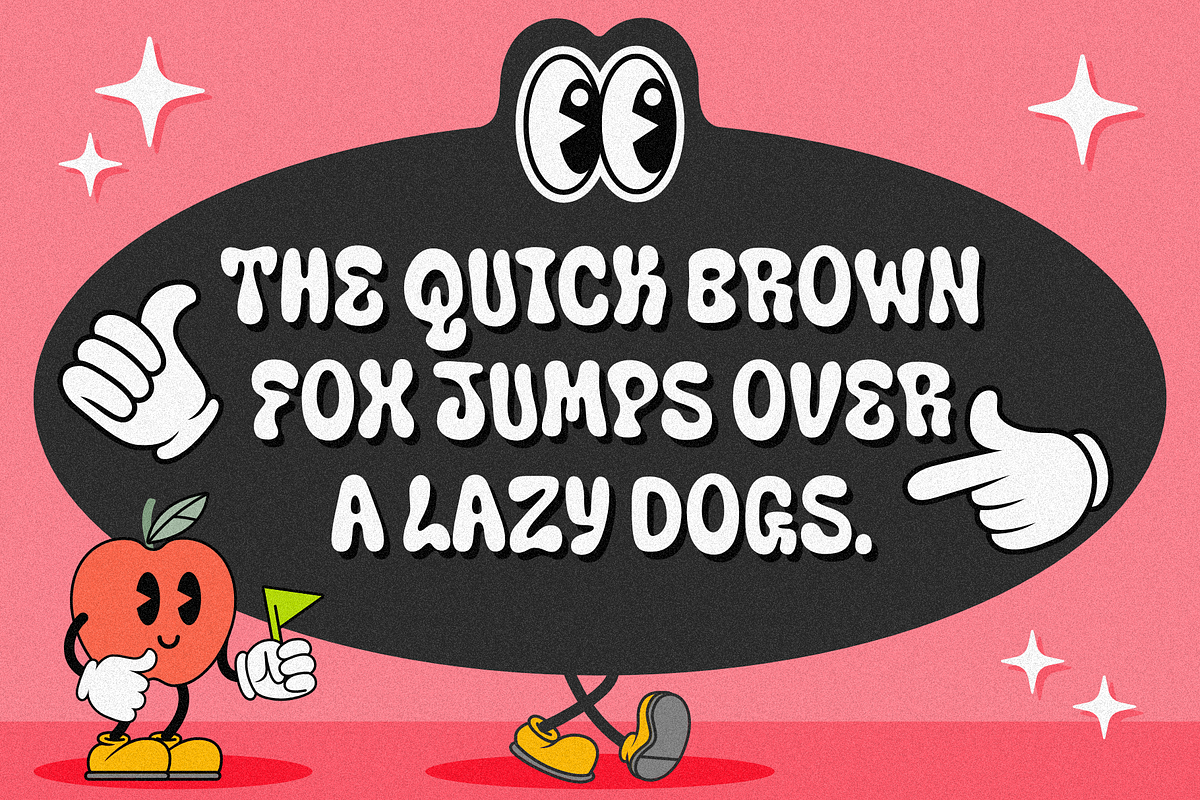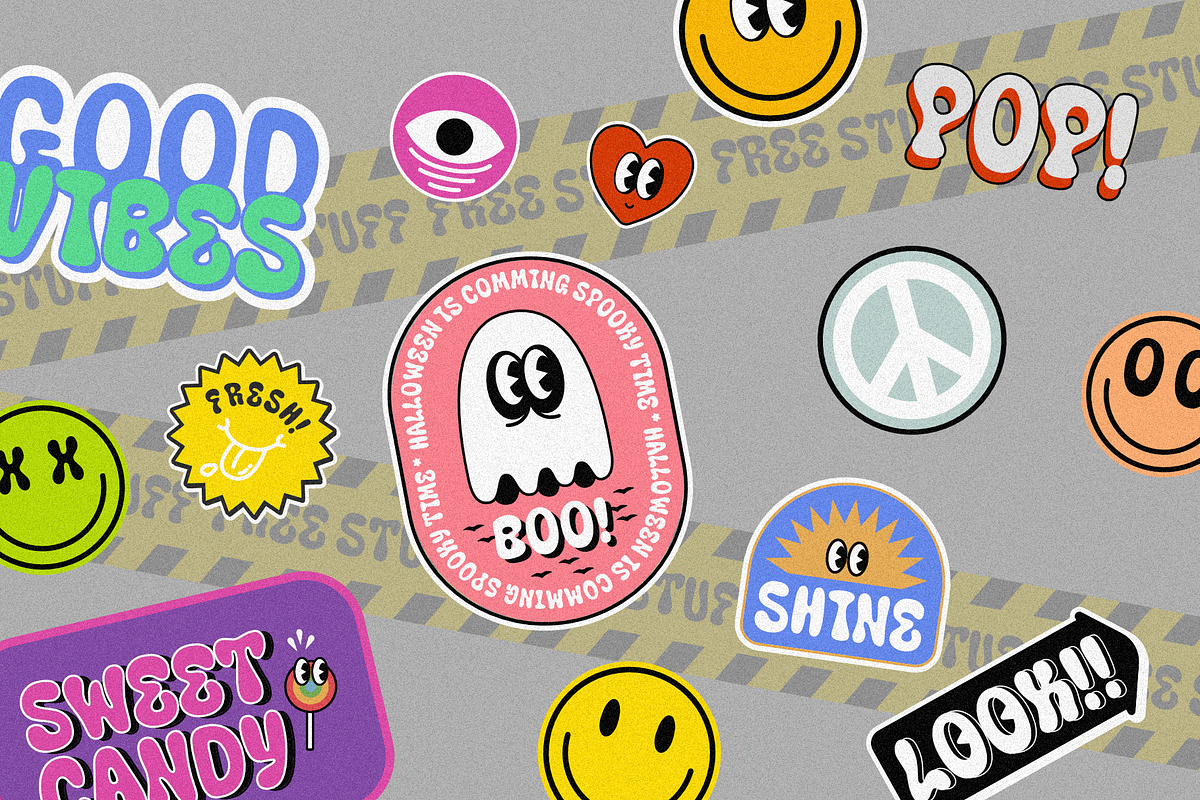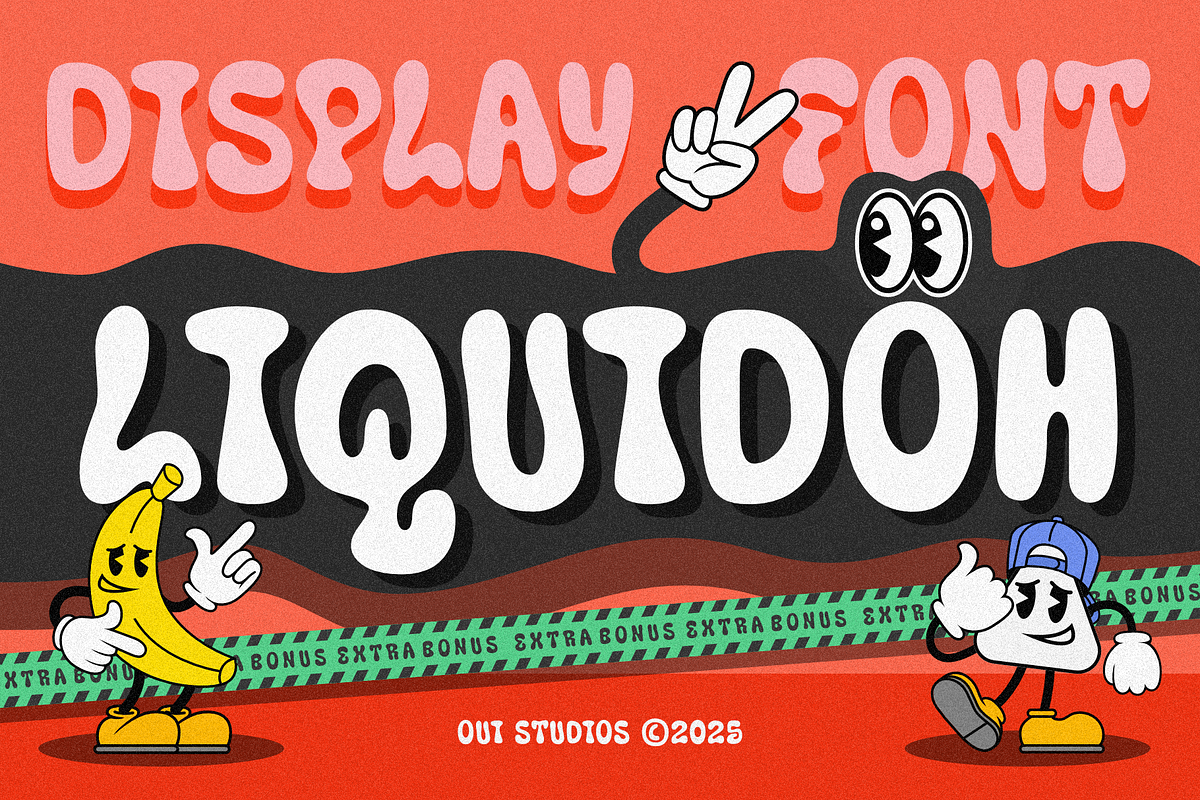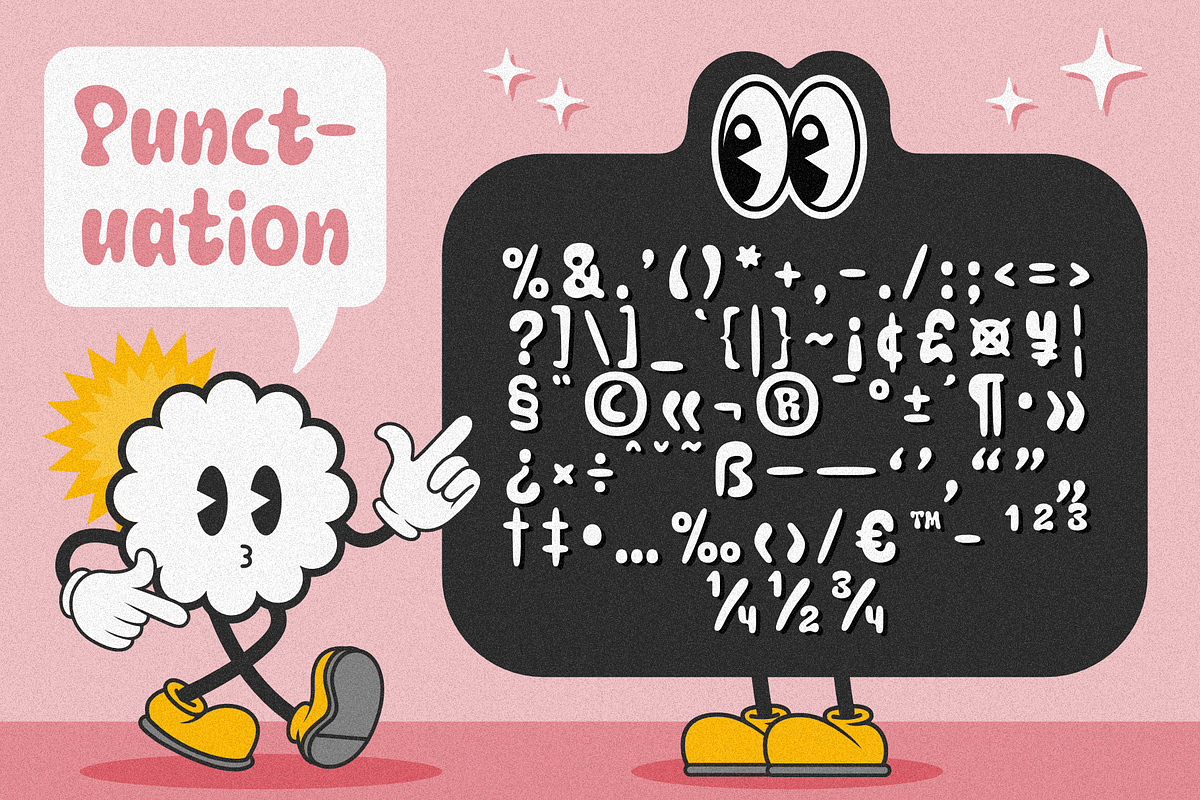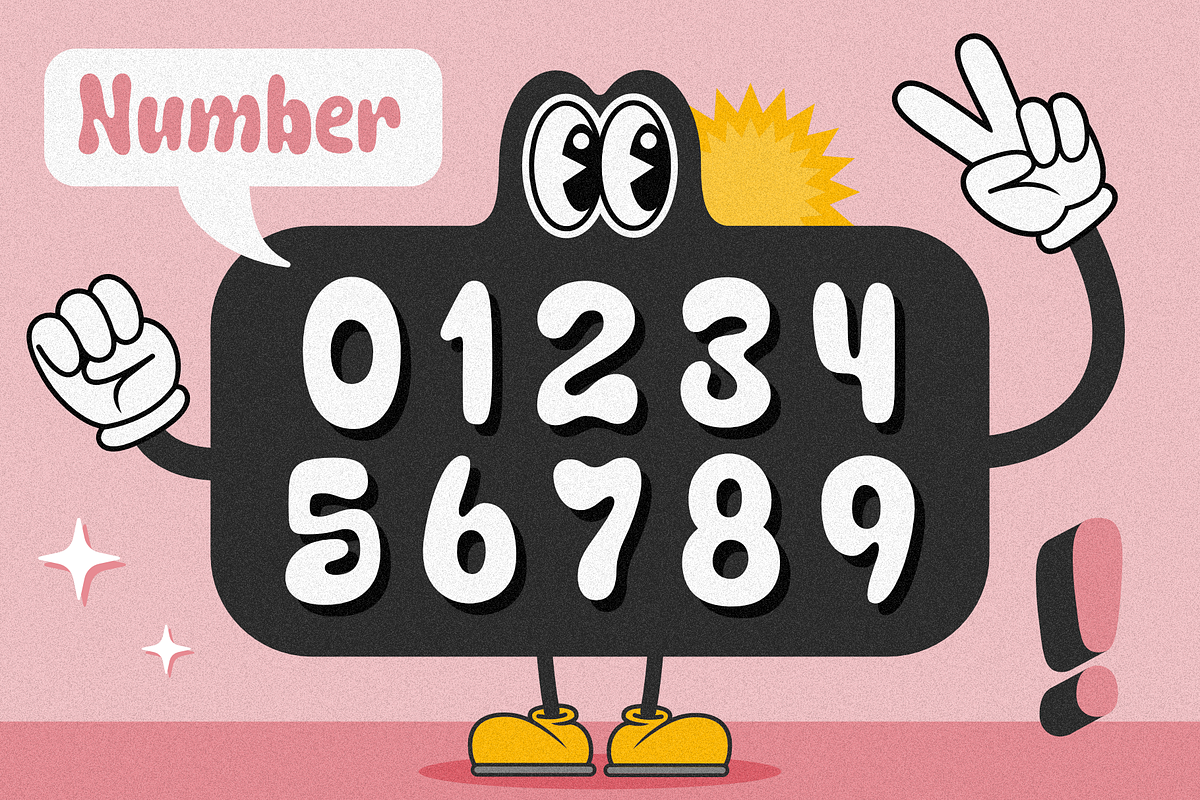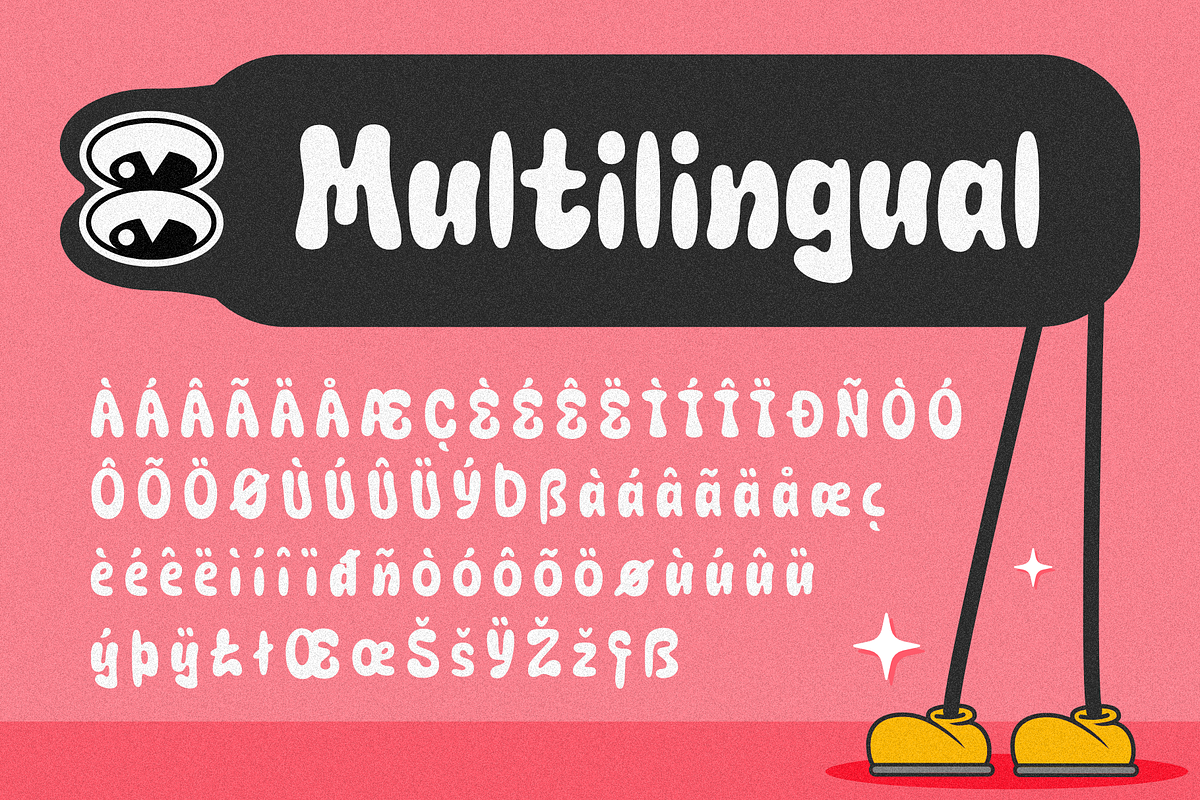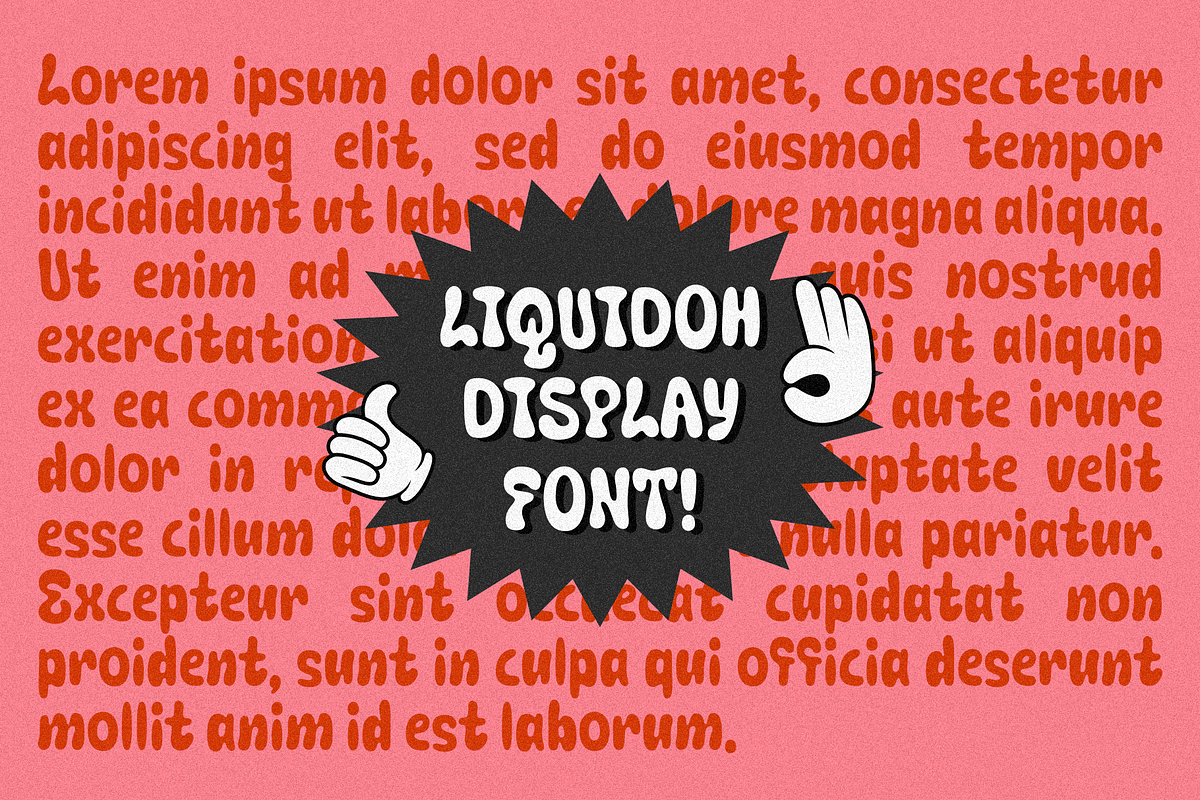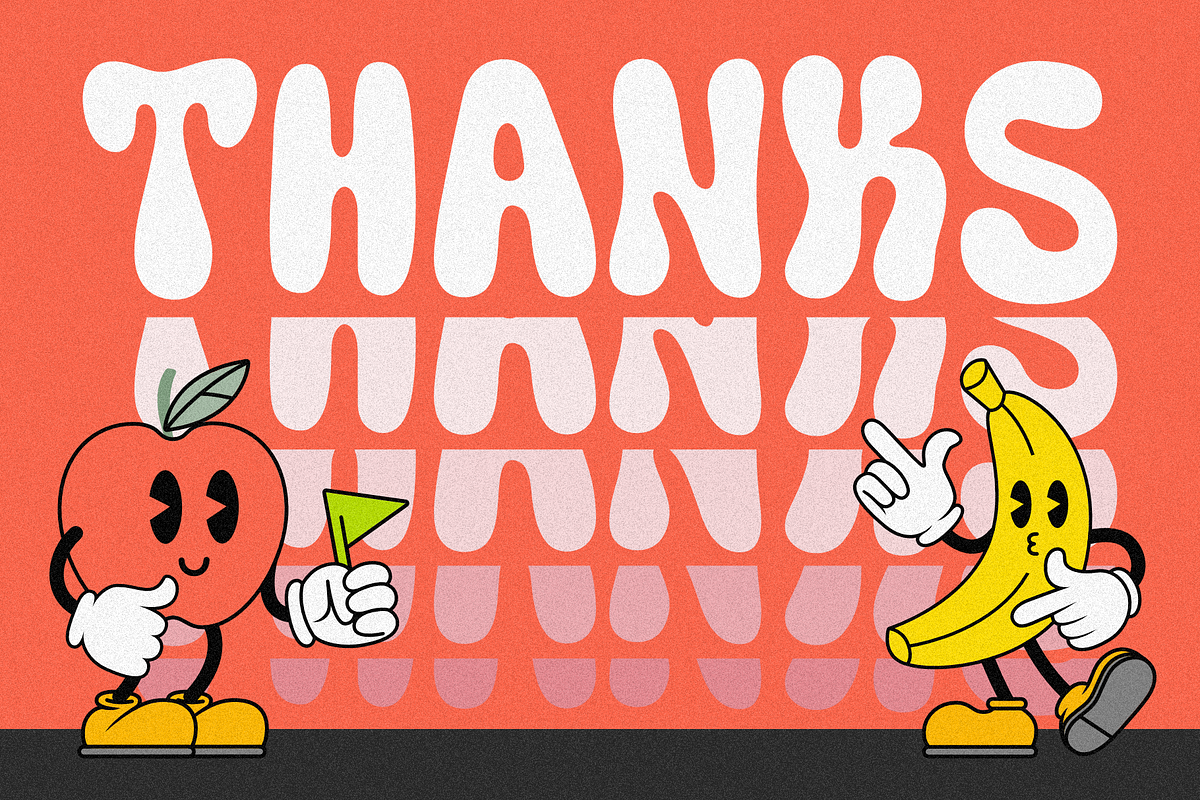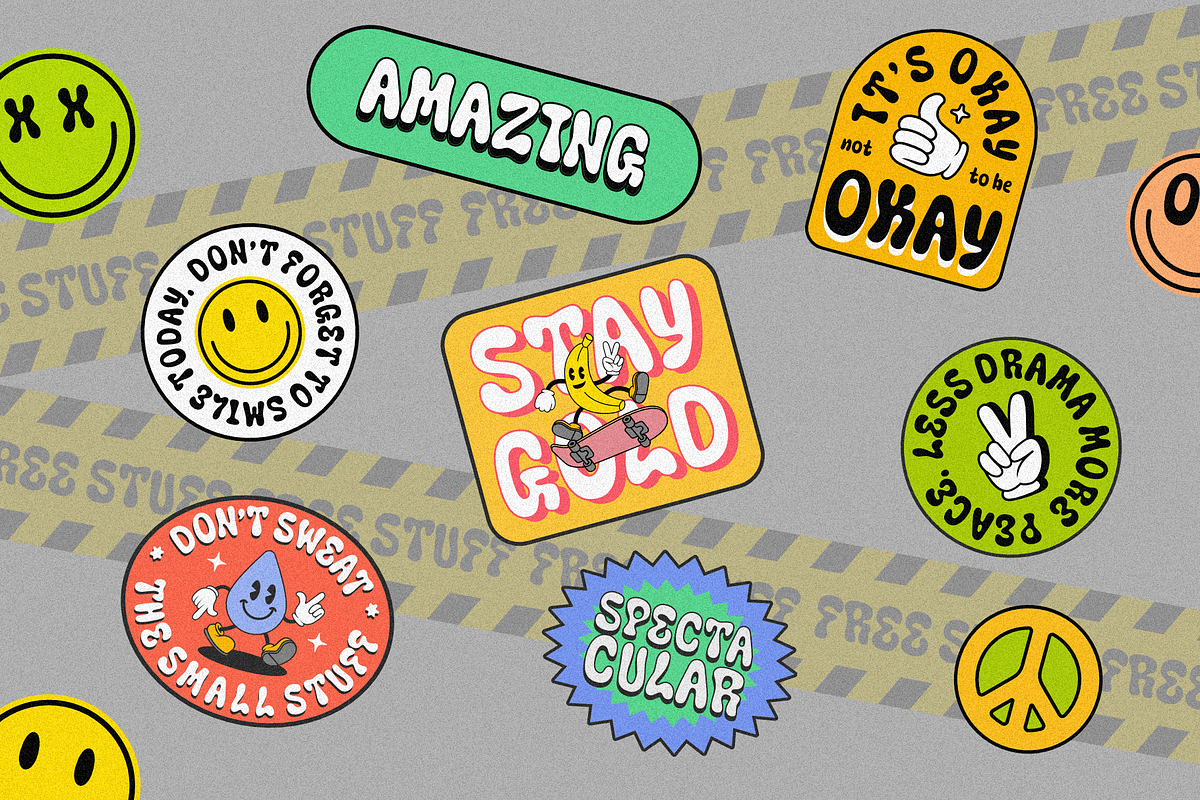
Liquidoh Playful Retro Font
Hello friends! The 'Liquidoh' font is coming, a super fresh playful retro font with a superb bonus!
Liquidoh is very inspired by the 60s-70s era of the lava lamp, dynamic and liquidy but still legible clearly.
Liquidoh has rounded corners and dynamic thickness. It's perfect for branding, logo, invitations, greeting cards, packaging, graphic tee, posters, digital or print stuff, artwork, product, etc. Need something extra? Liquidoh gives you a bonus! Yay! Lots of SVG and PNG files contain the illustrations that can be applicable as stickers, t-shirt design, character design assets, and more!